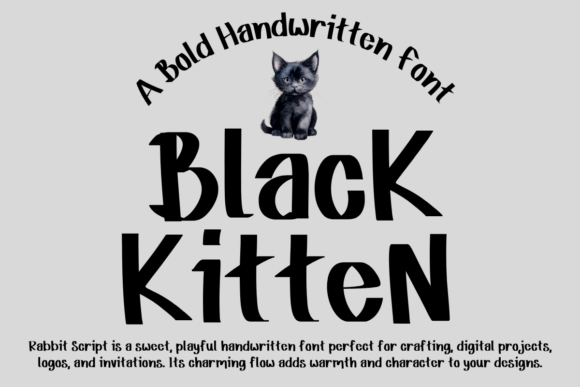
Introducing Black Kitten Font: The Ultimate Bold Display Handwritten Font for Digital Creations
In the world of digital design, the right font can make all the difference. Whether you’re creating a stunning Procreate design, writing a captivating blog post, or crafting a unique logo, the font you choose sets the tone for your entire project. This is where the Black Kitten Font comes into playβa bold, display handwritten font that has been gaining popularity for its versatility and aesthetic appeal. In this article, we’ll dive deep into what makes the Black Kitten Font a must-have for designers, bloggers, and digital creators alike.
The Allure of Black Kitten Font
Black Kitten Font is not just another font; it’s a statement piece. Its bold and expressive letters are handcrafted to bring a touch of personality to any project. The font’s unique charm lies in its handwritten style, which adds a personal and approachable feel to digital content. Whether you’re aiming for a playful vibe or a more sophisticated look, Black Kitten Font adapts seamlessly, making it an ideal choice for a wide range of applications.
Versatility at Its Best
One of the standout features of the Black Kitten Font is its incredible versatility. This font is not limited to a specific type of project; instead, it can be used across various platforms and designs. Here are some of the many ways you can utilize Black Kitten Font:
- Procreate Designs: Add a personal touch to your digital art with a font that stands out.
- Blog Posts: Use it for headings or even the entire content to give your blog a unique voice.
- Logos and Branding: Create a memorable brand identity with a bold and distinctive font.
- Digital Planners: Organize your digital space with style, making your planners both functional and visually appealing.
- Invitations and Greeting Cards: Add a personal and warm touch to your digital invitations and greeting cards.
- Photo Albums: Make your digital photo albums more engaging with captions and titles that pop.
Why Choose Black Kitten Font?
With so many fonts available, why should you choose Black Kitten Font for your projects? Here are a few compelling reasons:
- Unique Style: Its bold, handwritten style ensures your project stands out from the crowd.
- Easy to Read: Despite its boldness, the font remains clear and easy to read, making it perfect for both headings and body text.
- Highly Versatile: It can be used in a variety of contexts, from digital designs to print materials.
Tips for Maximizing Impact
To get the most out of Black Kitten Font, consider the following tips:
- Mix and Match: Combine Black Kitten Font with other fonts to create visual interest and hierarchy in your design.
- Play with Colors: Experiment with different colors to find the perfect match for your brand or project’s theme.
- Adjust Letter Spacing: Tweaking the letter spacing can enhance readability and aesthetic appeal.
- Use it Boldly: Take advantage of the font’s bold nature by using it for headings and important information.
Black Kitten Font is more than just a bold display handwritten font; it’s a tool that can elevate your digital creations to new heights. Its versatility, unique style, and ease of use make it an invaluable asset for designers, bloggers, and digital creators. Whether you’re working on a Procreate design, crafting a blog post, designing a logo, or creating digital planners and invitations, Black Kitten Font is sure to add that extra special touch. So, why settle for ordinary when you can make your projects stand out with the distinctive charm of Black Kitten Font?
Q: Can I use Black Kitten Font in digital planners and journals?
A: Absolutely! Black Kitten Font is perfect for digital planners, journals, and other digital note-taking projects due to its readability and aesthetic appeal.
Q: Is Black Kitten Font suitable for beginners?
A: Yes, Black Kitten Font is user-friendly and suitable for beginners. Its clear and bold letters make it easy to work with, even for those new to digital design.